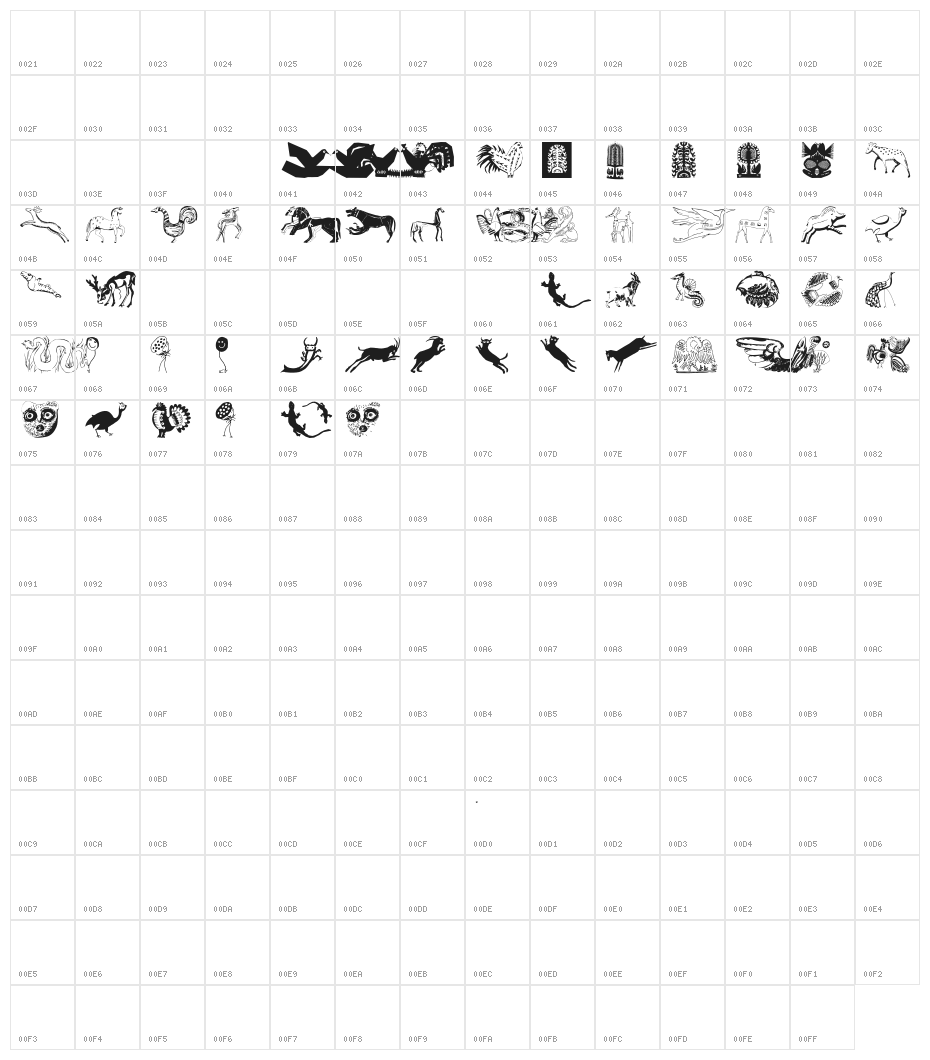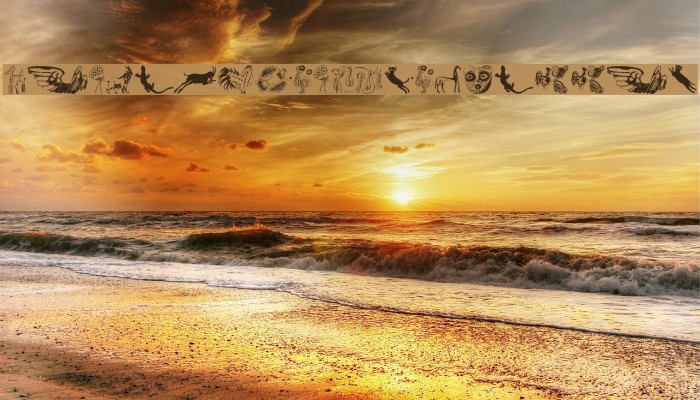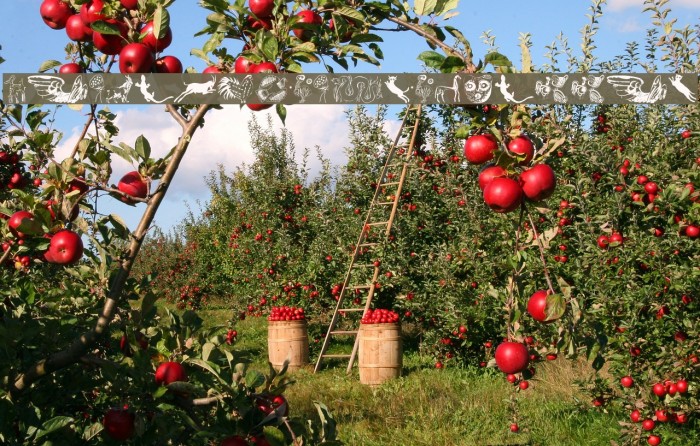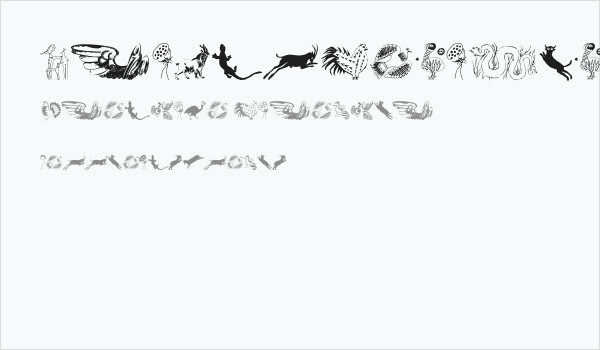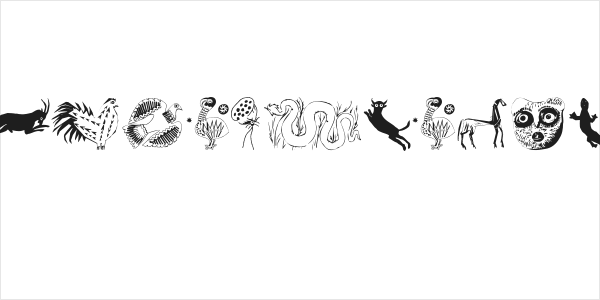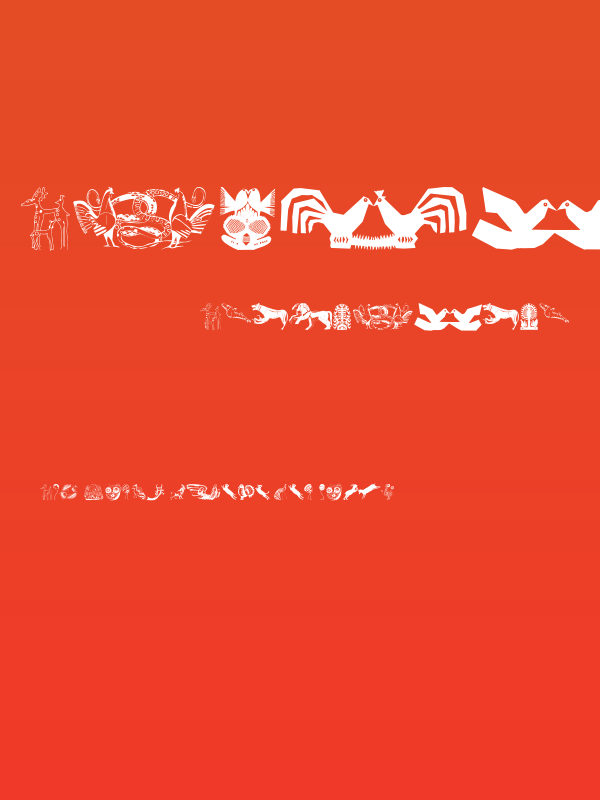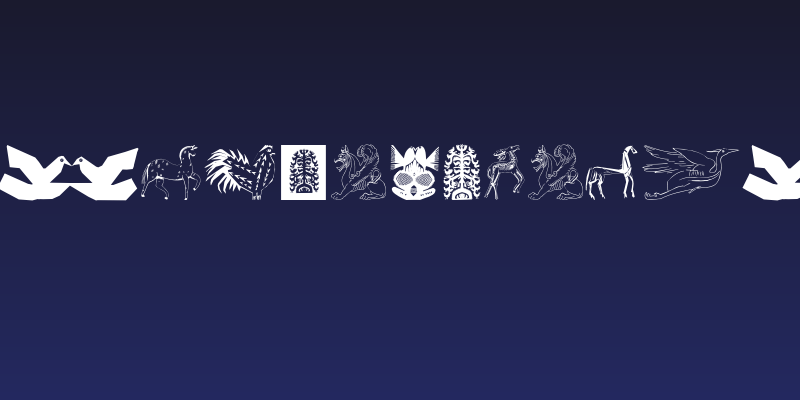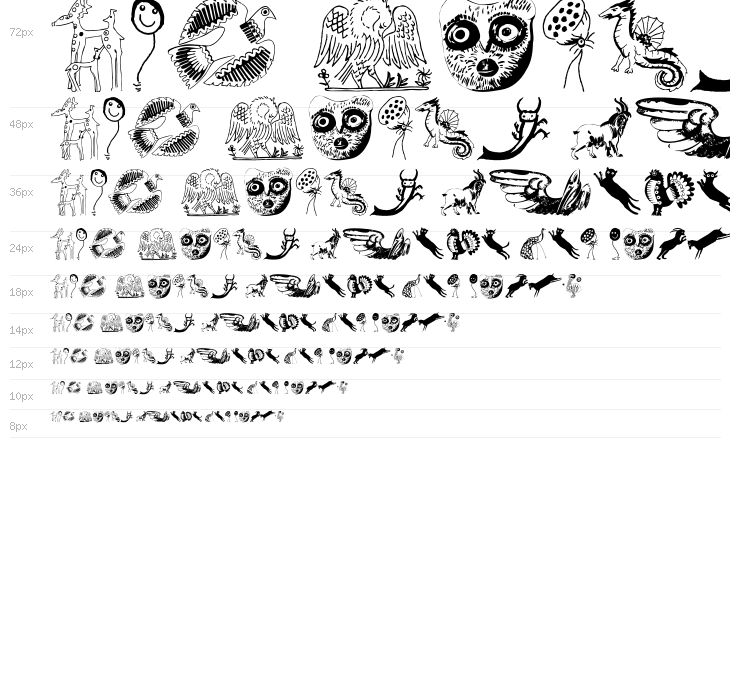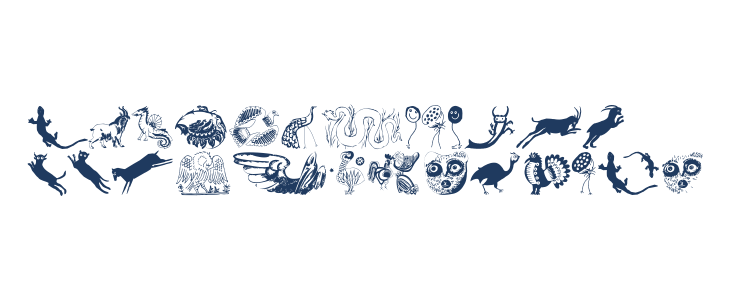
TribalDesignsQuattro Font
TribalDesignsQuattro Description
This design set features a collection of intricate tribal-inspired illustrations rather than a traditional font. Each character is represented by a unique tribal motif, ranging from animals to abstract patterns. The designs are highly detailed, showcasing a variety of line thicknesses and artistic styles that reflect cultural artistry. The motifs are bold and visually striking, making them suitable for decorative purposes. The set does not include standard alphabetic or numeric characters, focusing instead on artistic expression through symbolic imagery.
| Use Case | Logos, Art projects, Decorative prints |
| Proposed Projects | Ideal for use in cultural art projects, decorative prints, tattoo designs, and themed graphic design work. |